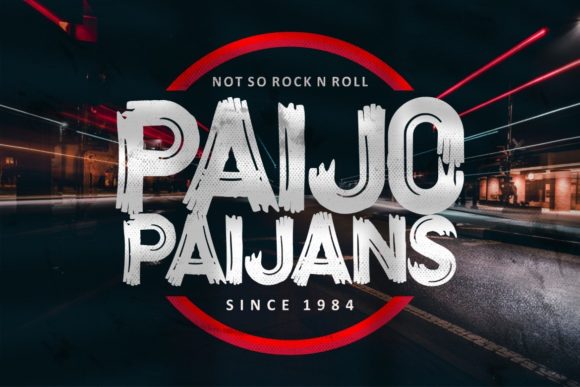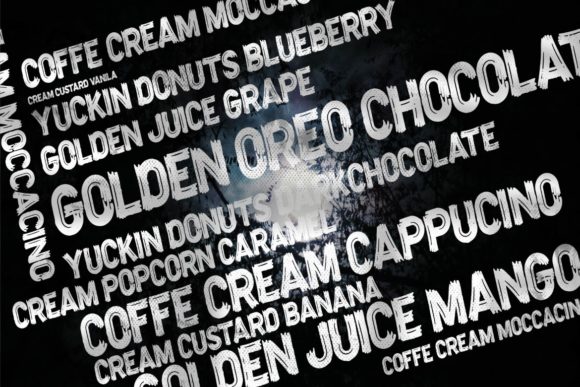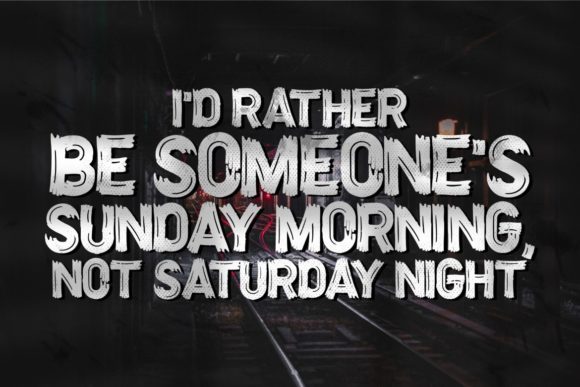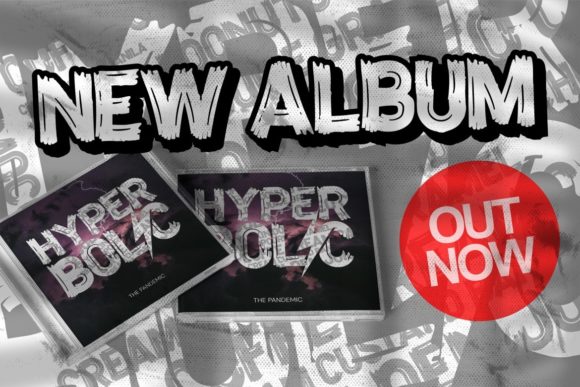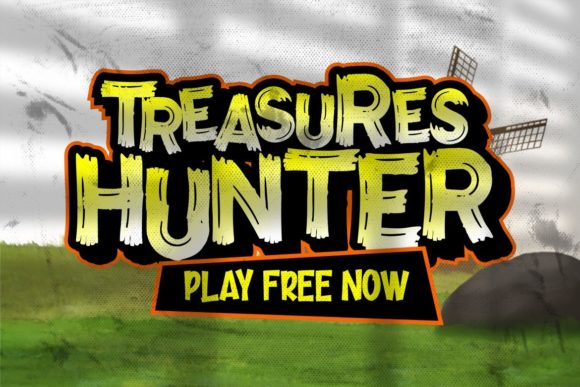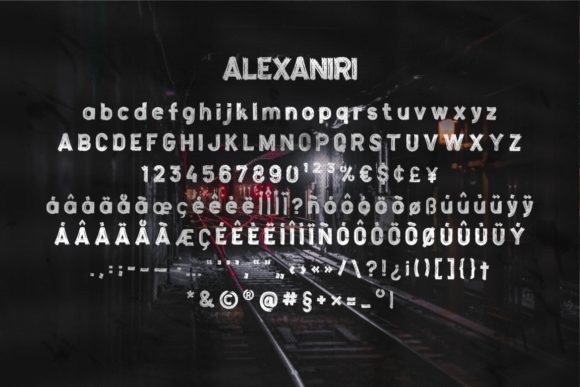
Introducing Alexaniri Font: The Ultimate Display Font for Stunning Designs
Are you tired of using the same old fonts for your designs? Look no further! Alexaniri Font is here to revolutionize your creative projects with its cool, bold, and brushed display style. This versatile font is perfect for designers and crafters who want to add a touch of uniqueness to their work.
What Makes Alexaniri Font So Special?
Alexaniri Font is a one-of-a-kind display font that boasts a distinctive brushed look, making it perfect for creating eye-catching posters, flyers, and prints. Its bold and cool style ensures that your designs will stand out from the crowd, grabbing the attention of your audience. Whether you’re working on a personal project or a client’s design, Alexaniri Font is sure to impress.
With Alexaniri Font, the creative possibilities are endless! You can use it to:
- Create stunning posters and flyers for events, promotions, or announcements
- Design beautiful prints, such as business cards, brochures, or menus
- Develop eye-catching social media graphics, blog posts, or website headers
- Make unique and personalized gifts, such as customized mugs, t-shirts, or tote bags
Key Features of Alexaniri Font
Here are some of the key features that make Alexaniri Font a must-have for designers and crafters:
- Cool and bold style: Alexaniri Font has a distinctive brushed look that adds a touch of edginess to your designs
- Versatile and flexible: Use it for a wide range of projects, from posters and flyers to prints and digital designs
- Easy to read: Despite its bold style, Alexaniri Font is clear and easy to read, making it perfect for body text and headings
Tips for Using Alexaniri Font
To get the most out of Alexaniri Font, here are some tips to keep in mind:
- Experiment with different colors: Alexaniri Font looks great in bold and bright colors, so don’t be afraid to try out different hues
- Mix and match with other fonts: Combine Alexaniri Font with other fonts to create a unique and visually appealing design
- Pay attention to spacing: Make sure to adjust the spacing between letters and words to ensure that your design looks balanced and harmonious
In conclusion, Alexaniri Font is a game-changer for designers and crafters who want to take their creative projects to the next level. Its cool, bold, and brushed display style makes it perfect for a wide range of designs, from posters and flyers to prints and digital designs. With its endless possibilities and versatile features, Alexaniri Font is a must-have for anyone looking to add a touch of uniqueness to their work. So why wait? Download Alexaniri Font today and explore its endless possibilities!